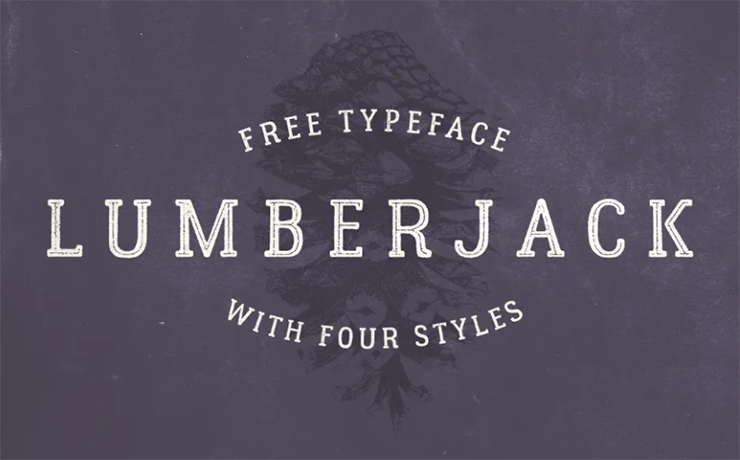
Here we have Lumberjack Font, a uniquely created slab serif font that’s perfect for any design project needing a hand-drawn finish.
The vintage design of the font will go along perfectly work with your modern retro design projects. This typeface was designed by Alexey Kalinin.
It’s a great font with a solid texture that makes it perfect for printing and display use such as posters or banners. Therefore, it is really a perfect choice for this use.
Every typeface is created after proper planning. So there is a whole plan behind it. The designer has introduced a font that can work in a friendly way.
| Style: | Slab Serif, Display, Typeface |
What’s more, this font can work alone to create a new look and create a better combination.
You can use this font for technical documents, brand logos, printing on cards, special cards, unique emblems, book covers, posters, tattoos, badges, clothing, labeling, as well as many other similar things.
It offers four styles including Regular, Rough, Inline Rough, and Shadow Rough. Each weight has 385 characters with an OTF file format.